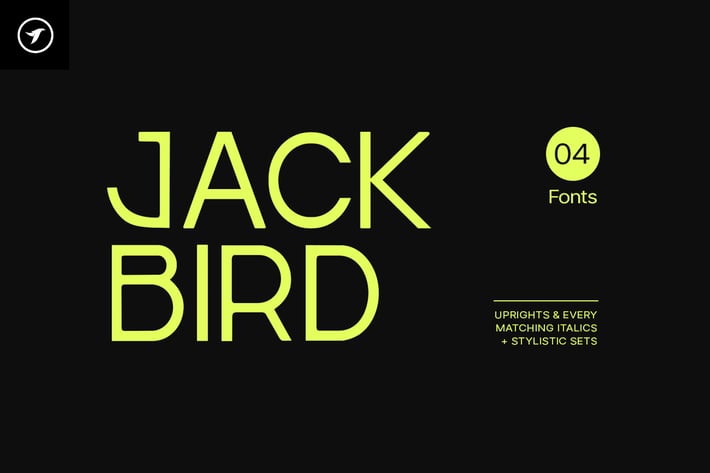
Jackbird - Modern Display / Headline Typeface
Jackbird is a display typeface, perfect for making your designs stand out among the crowd. The font is versatile and can be used in a variety of designs, from branding materials to social media graphics. It's perfect for creating logos, headlines, posters, monograms and more. This all-caps font is designed to be bold and attention-grabbing, ensuring that your message is communicated loud and clear.
The typeface comes with OpenType Stylistic Alternatives feature giving you the option to add some unique characters which can be transformed into wonderful monograms. Please see the examples shown above to get an idea of the capability of this typeface.
Jackbird comes with extended language support including Western European, Central European, and South-Eastern European character sets (total of 273 glyphs).